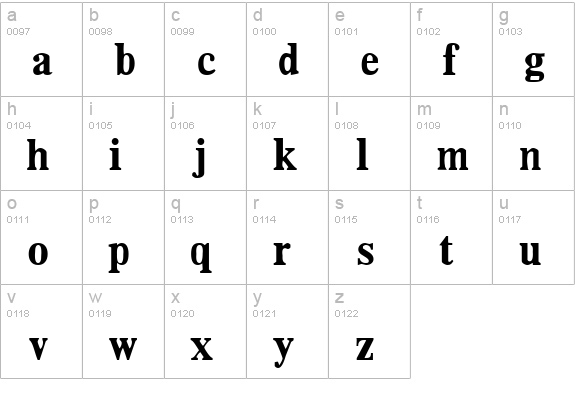
DailyPlanet Black Font Details
DailyPlanet Black is a maximum-weight, dramatic variant in the DailyPlanet typeface family \xE2\x80\x94 well suited to maximum-impact headlines, posters, and packaging.
Introducing DailyPlanet Black font, a sleek and sophisticated typeface that exudes power and elegance. This font is perfect for adding a touch of class to any design project, from logos and branding to headlines and titles. With its bold and confident letterforms, DailyPlanet Black demands attention and makes a statement. Its clean lines and strong presence make it a versatile choice for both print and digital media. Whether you're designing a magazine spread, crafting a website layout, or creating eye-catching social media graphics, this font will elevate your designs to new heights. But what sets DailyPlanet Black apart is not just its stunning aesthetics, but also its accessibility. This font is freely available to download at FontsMarket.com, making it accessible to designers of all levels and budgets. Now you can have a high-quality, professionally crafted font without breaking the bank. The versatility and affordability of DailyPlanet Black make it an essential addition to any designer's toolkit. Its timeless style and wide range of potential applications make it the perfect choice for both personal and commercial projects. From fashion and beauty to technology and finance, this font will enhance your message and captivate your audience. So, whether you're a seasoned professional or a budding designer, make sure to download DailyPlanet Black from FontsMarket.com today. Experience the freedom of having a premium font at your fingertips, and discover the endless possibilities it brings to your creative endeavors.